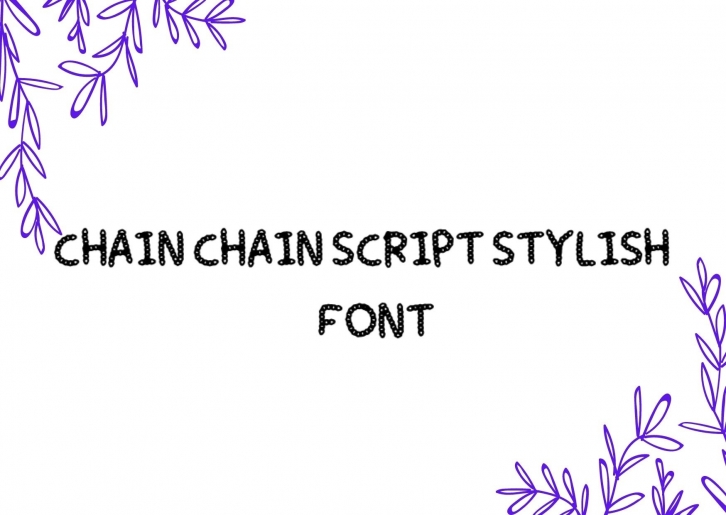
Chain Chain is a cool and versatile display font. No matter the topic, this font will be an incredible asset to your fonts’ library, as it has the potential to elevate any creation!